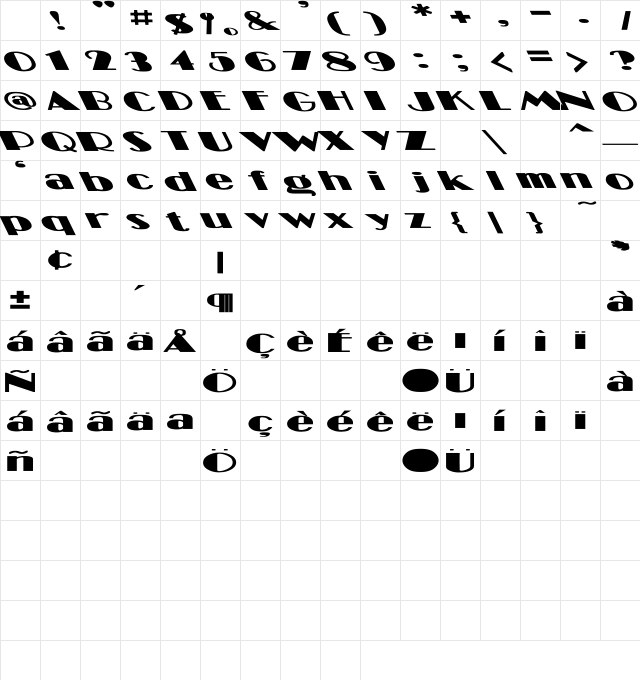
Miami Lefty Ex Bold Bold
Design Context for Miami Lefty Ex Bold
Miami Lefty Ex Bold is a composed and adaptable typeface that performs quietly and consistently across a wide range of design contexts. Its bold stroke weight gives it real presence on the page.